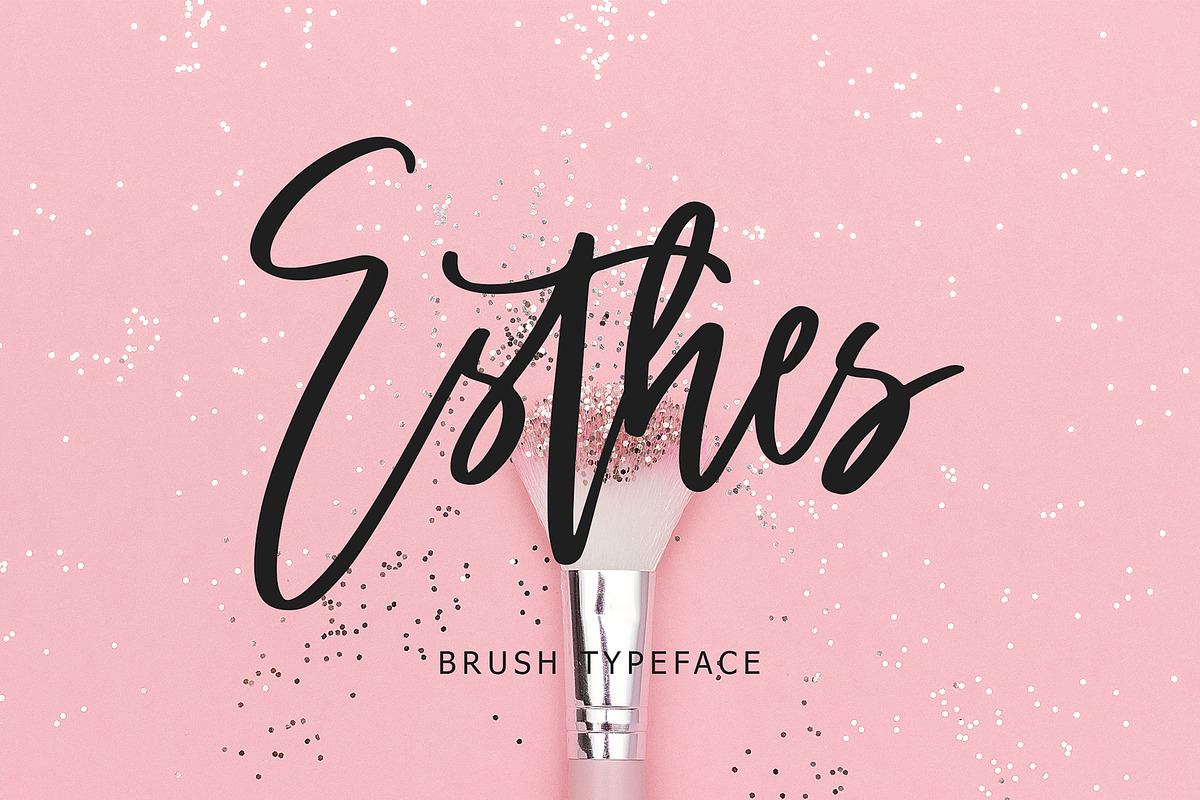
Esthes Brush Script Typeface Free Download is a bold and expressive script font that mimics the natural brush strokes of hand lettering. With its flowing curves and dynamic brush effect, this font is perfect for creative projects that require an artistic, personal touch—such as logos, posters, invitations, branding, and more.
The font's unique, handcrafted style makes it ideal for projects that need to stand out with energy and creativity. Whether you're designing for a creative brand, an event, or any project needing a bold handwritten look, Esthes adds character and flair to your typography.